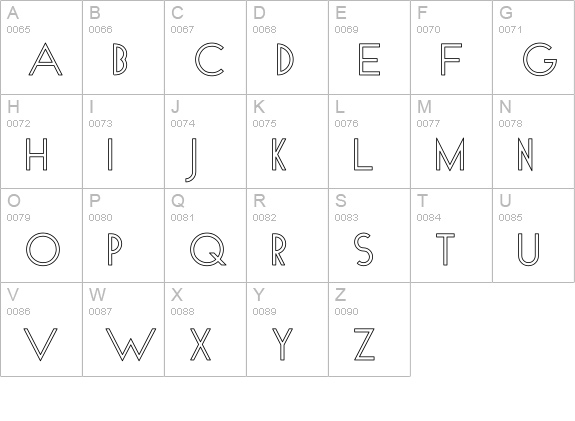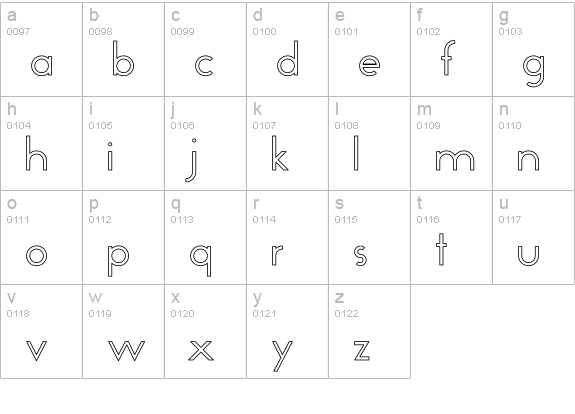
GeoPlain Hollow Font Details
Introducing GeoPlain Hollow font - a modern and sleek typeface perfect for adding a contemporary touch to your design projects. This unique font features a clean and minimalist style with hollow geometric shapes that create a striking visual impact. GeoPlain Hollow font is versatile and can be used for various design applications, from logos and branding to packaging and web design. The best part is that GeoPlain Hollow font is completely free to download at FontsMarket.com. You can easily access this stylish font and enhance your projects with its modern aesthetic. Don't miss out on the opportunity to elevate your designs with this eye-catching typeface. Download GeoPlain Hollow font today and let your creativity shine!